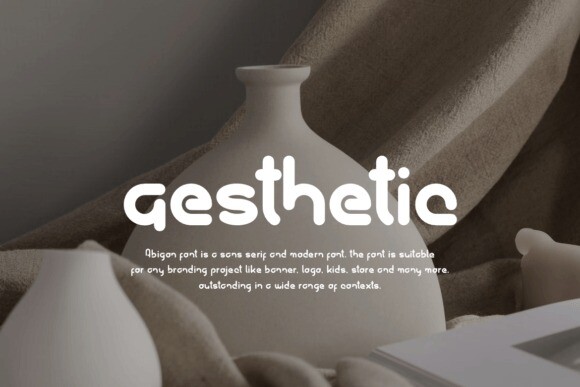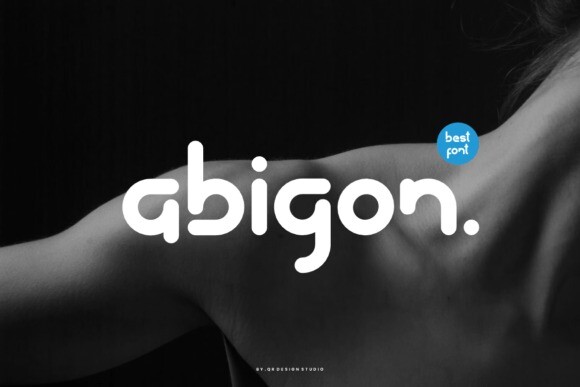
Abigon Font
Designer: qrdesignstd
Abigon Font is a new handwritten font that feels fresh and modern. Its style is casual and easy to read, perfect for adding a personal touch to your projects. Whether you’re creating invitations, posters, or social media graphics, Abigon adds a contemporary flair that stands out.